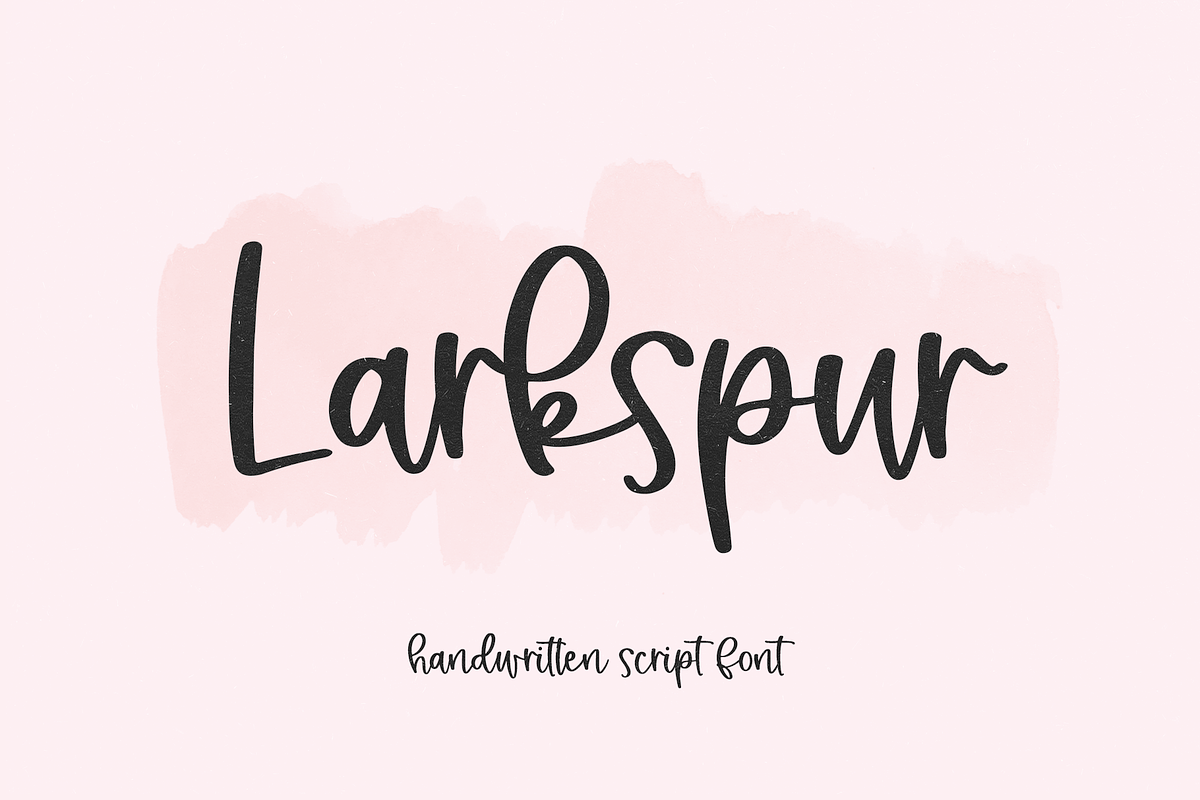
You must purchase this font for commercial use. However, you can download Larkspur | Handwritten Script Font Free Download for testing purposes. Larkspur is a beautifully crafted handwritten script font with flowing, elegant strokes. Perfect for invitations, logos, branding, greeting cards, and other creative projects that require a sophisticated yet personal touch.
The delicate, fluid design of Larkspur adds a unique and artistic flair to your typography. Whether you're working on a wedding invitation, designing a luxury brand, or creating a personalized gift, this font brings warmth, elegance, and charm to your design.